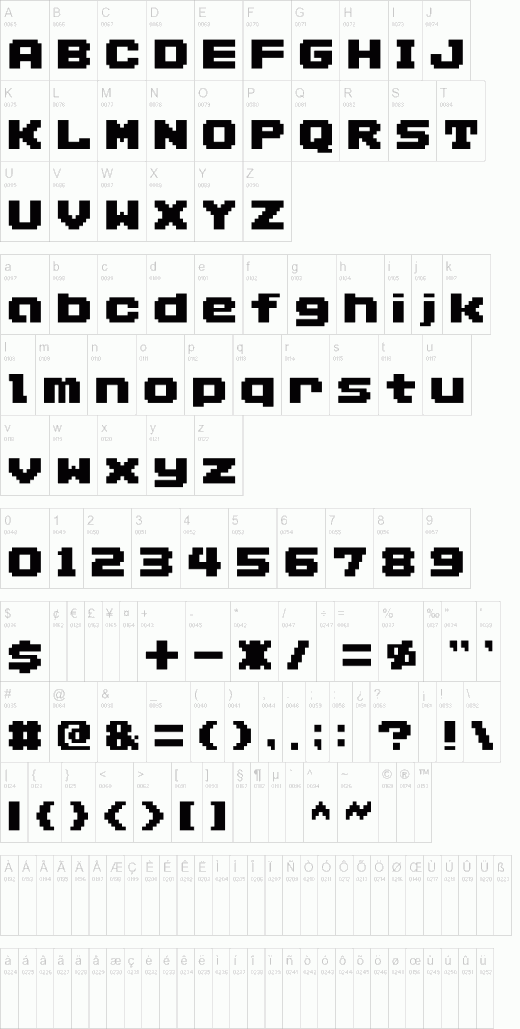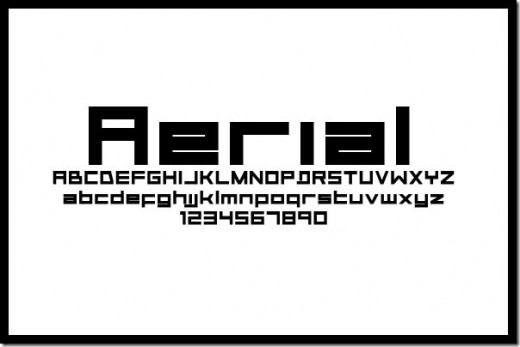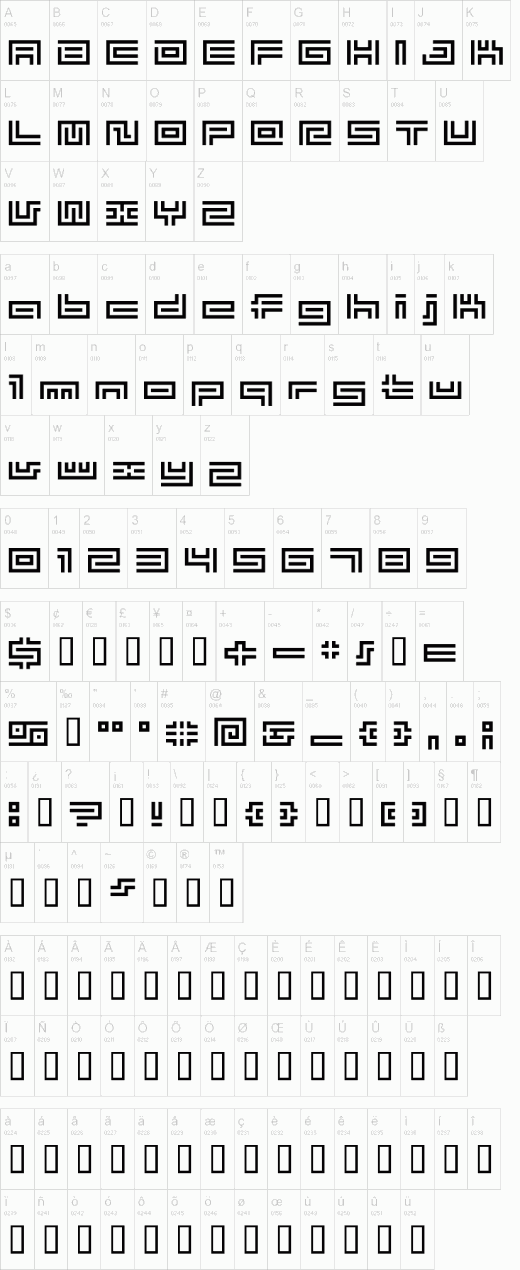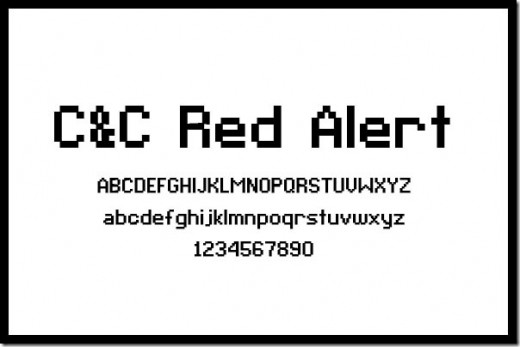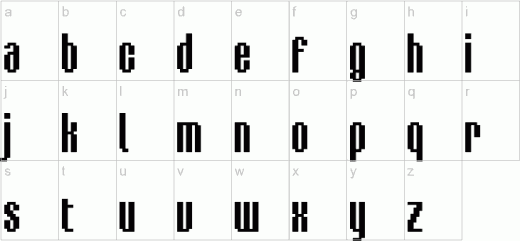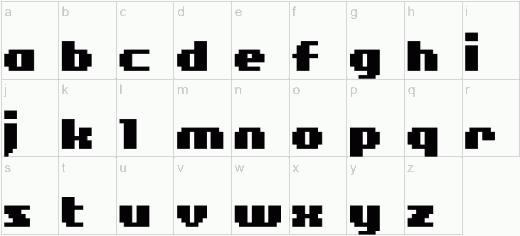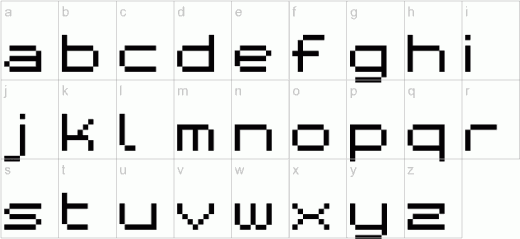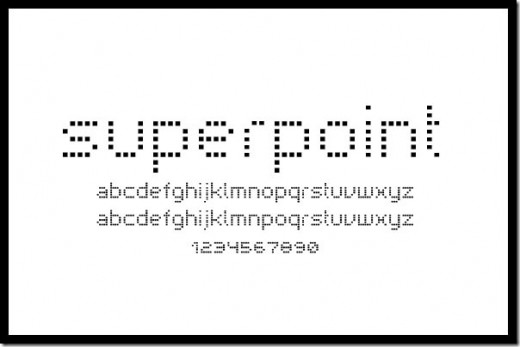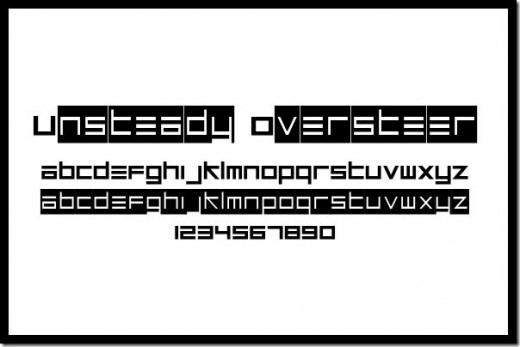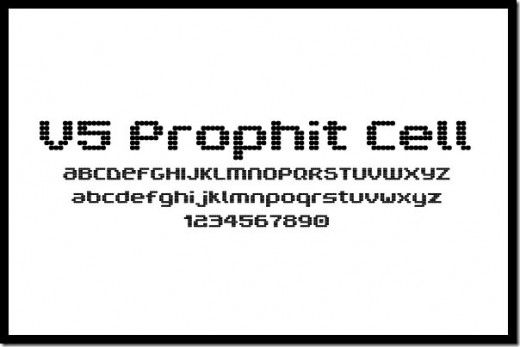
Remarkable Collection of Unique Bitmap and Pixel Fonts
Bitmap can be defined as a series of dots or pixels representing the image. Bitmaps can be very useful in many ways same in the case of Bitmap and Pixel fonts. They can be very handy because their size doesn’t matter, they can be too small and still readable. These fonts are used in computer codes, mobile having small display, also in LCD banners for advertisement.
These kind of fonts have many advantages, like, they are extremely fast and very simple to render, they always provide exact and same output and they are very easy to create as compared to other fonts. In this list we have collected many Awesome Bitmap and Pixel Fonts for you people. Have a look.
Lowercase Characters 3
C&C Red Alert
Figaro Fonts
Fonts Pixel Art
Drid Herder Fonts
Aerial Fonts Style
AddLG Bitmap 09 Fonts
Visitor Fonts
BM Tube Fonts
V5 Prophit Cell
Delico Fonts
Superpoint Font Style
Lowercase Characters Font
Unsteady Oversteer Fonts
Bit Dust Two Font Style